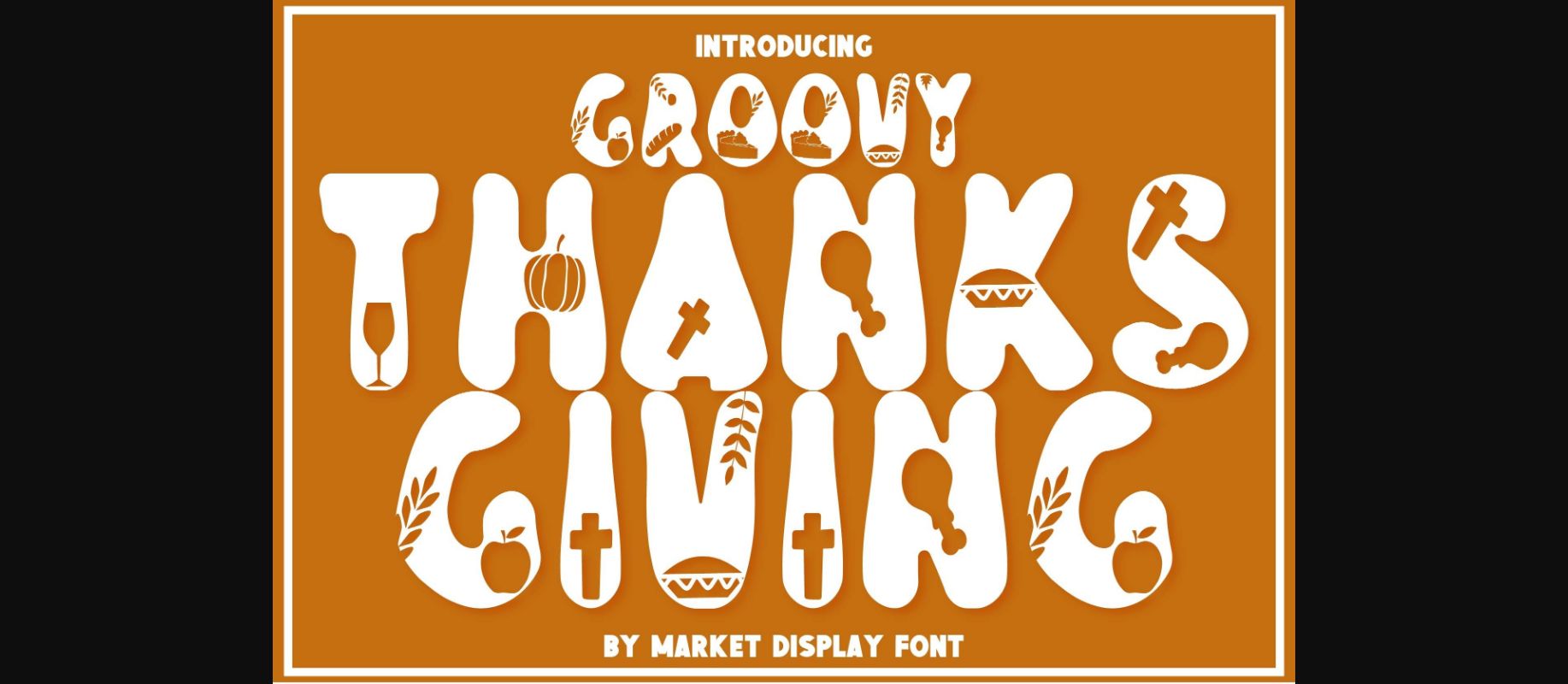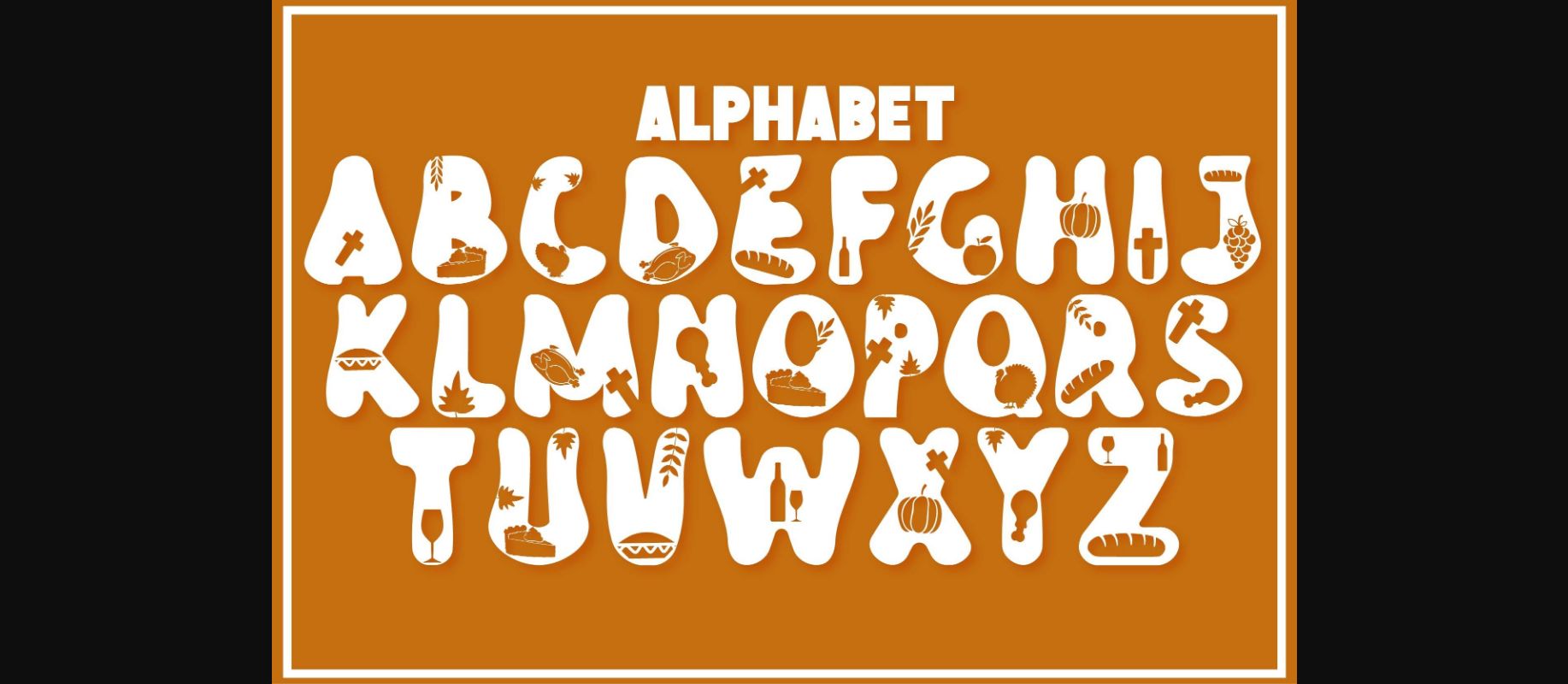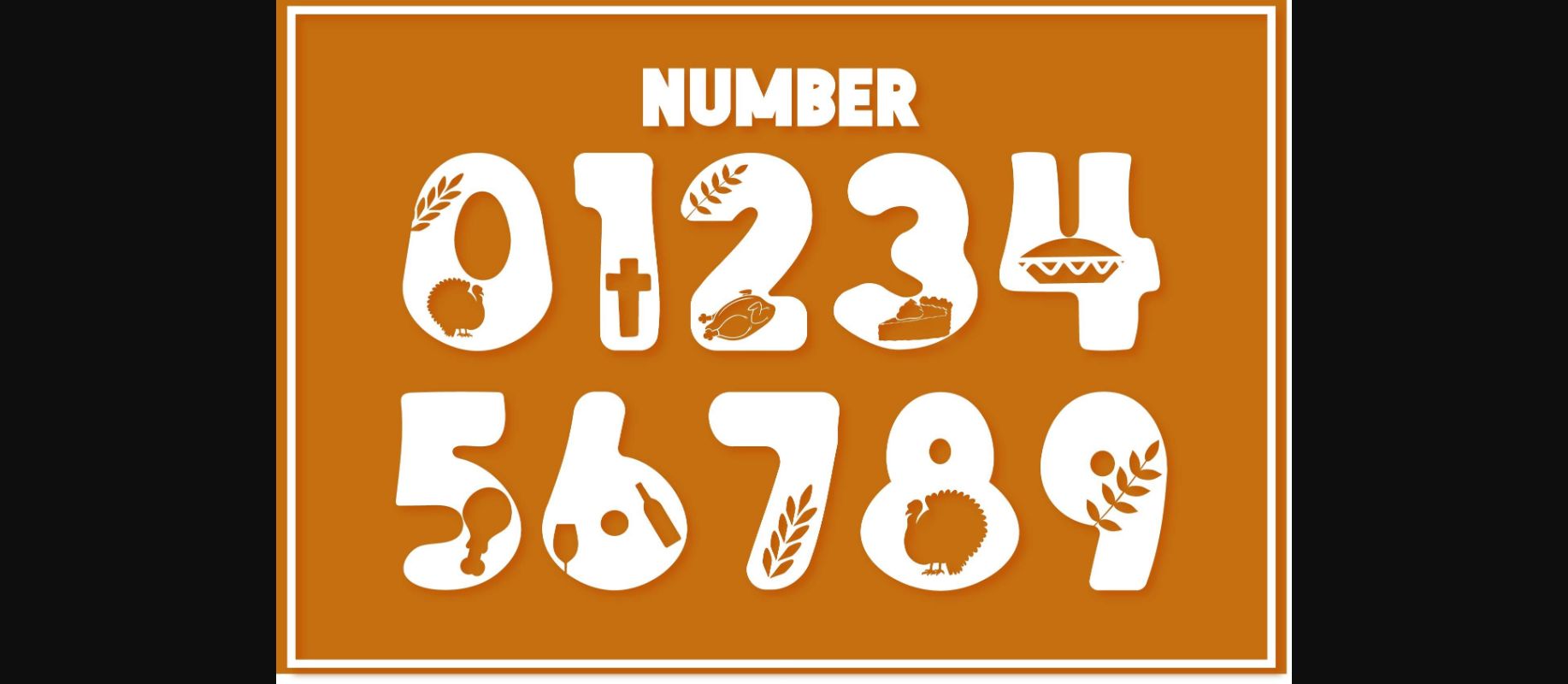
Groovy Thanksgiving Font
About Groovy Thanksgiving Font
Groovy Thanksgiving is a bold and chunky-lettered decorative font. This font has a very festive and versatile feel, so add it to your favorite Thanksgiving designs and make them come alive!